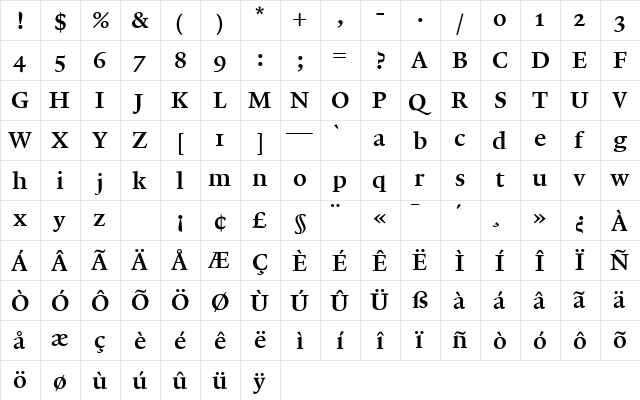
Lexicon No1 Roman C Txt
Design Context for Lexicon No1 Typeface
Lexicon No1 takes a measured approach to typography — its balanced proportions and neutral character make it a reliable workhorse for both digital and print work.